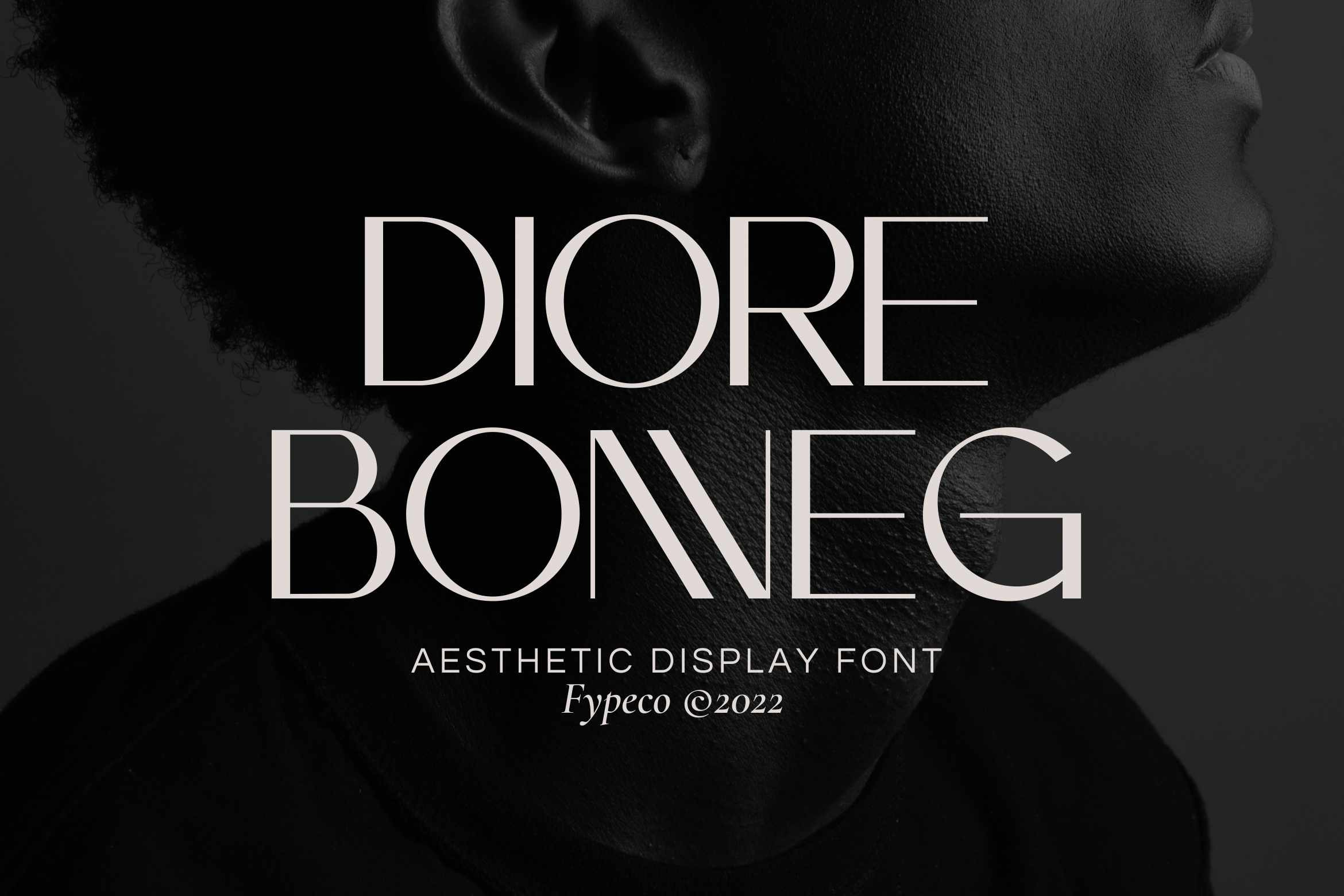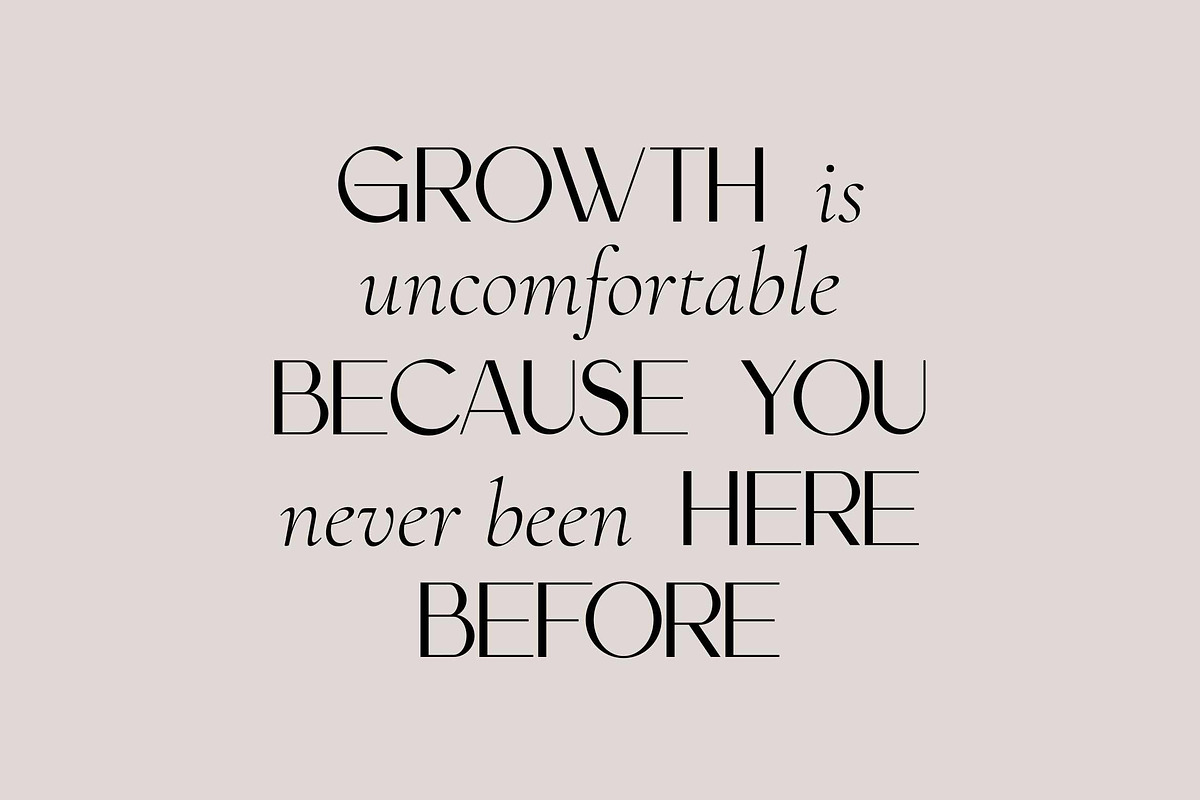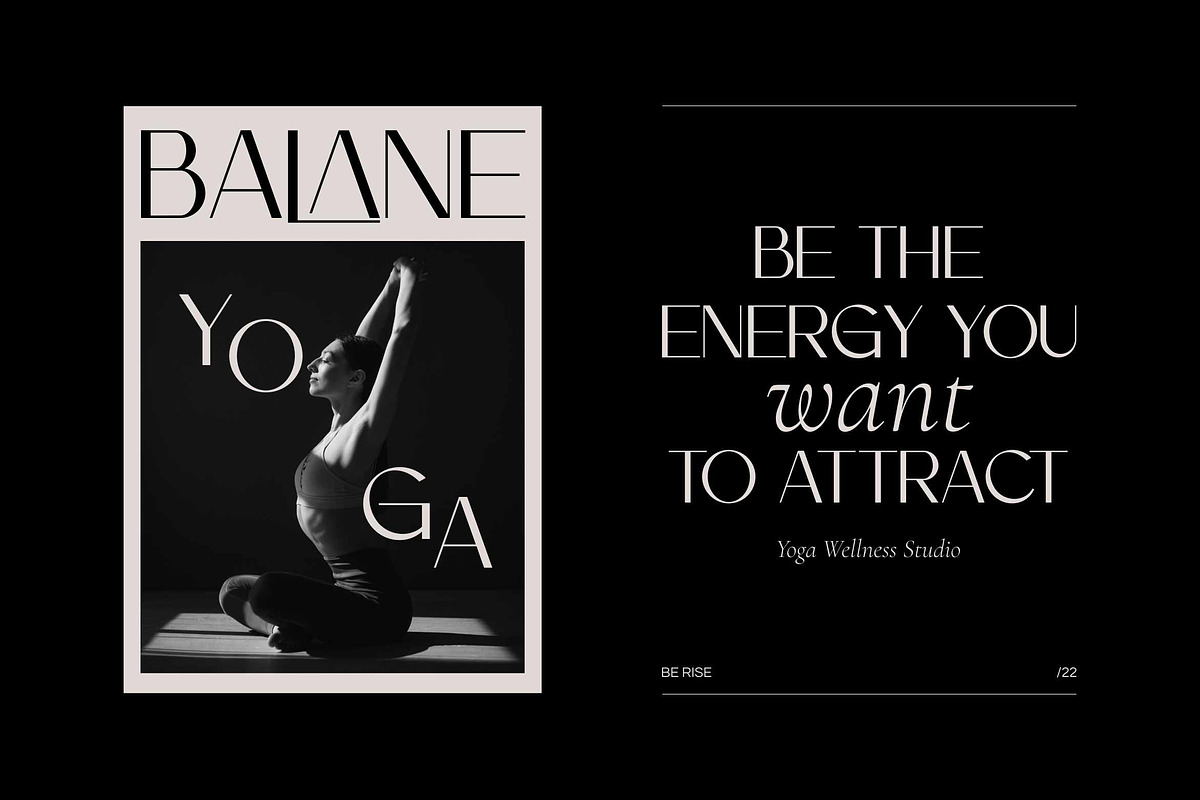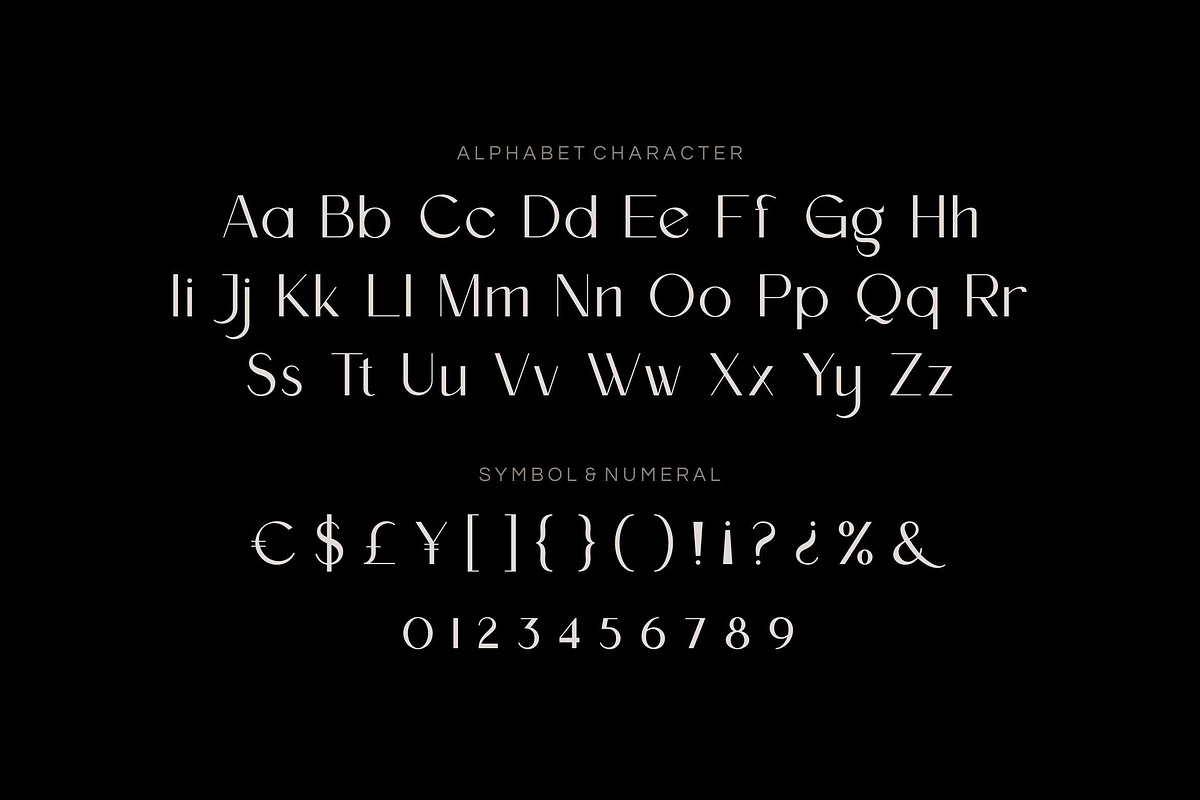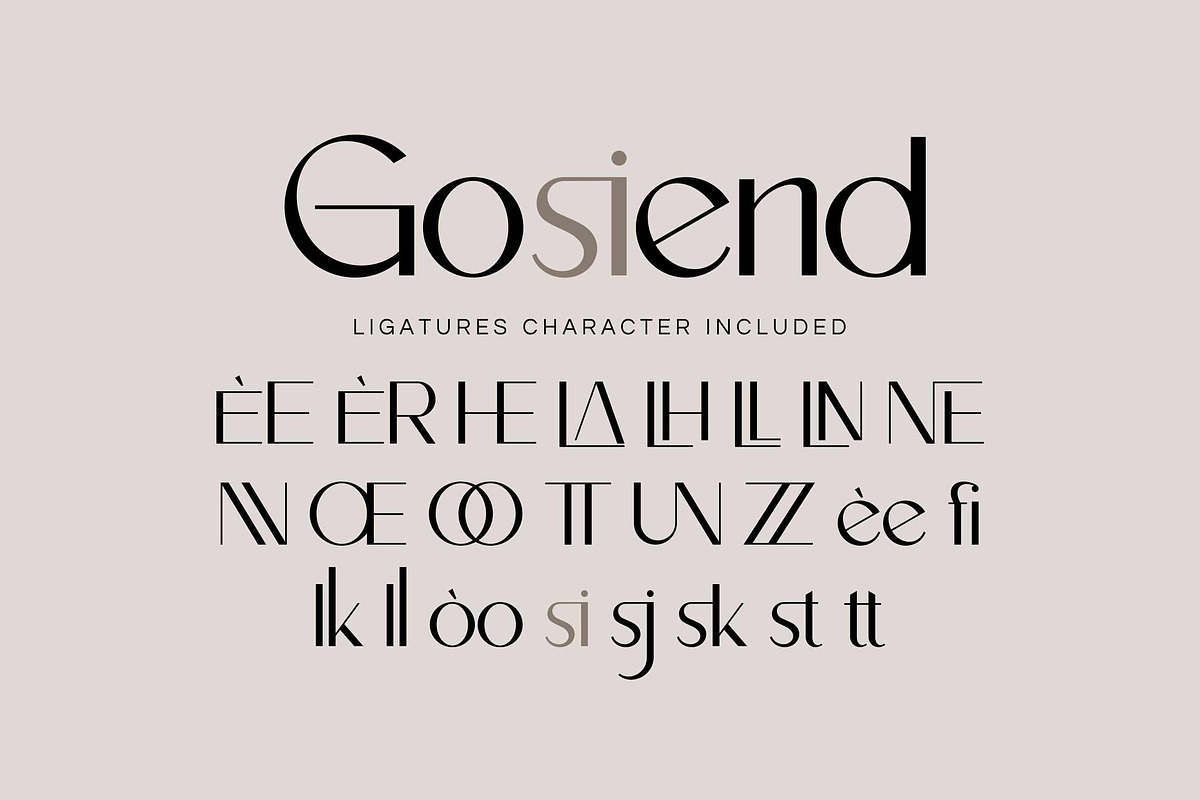
Diore Bonneg -Aesthetic Display Font
Diore Bonneg is a aesthetic display font with modern, simple, clean, and minimalist look. Specially designed for minimalist-themed projects, perfectly suitable for creating simple, clean, lifestyle design such as logos, title, and magazine and more.